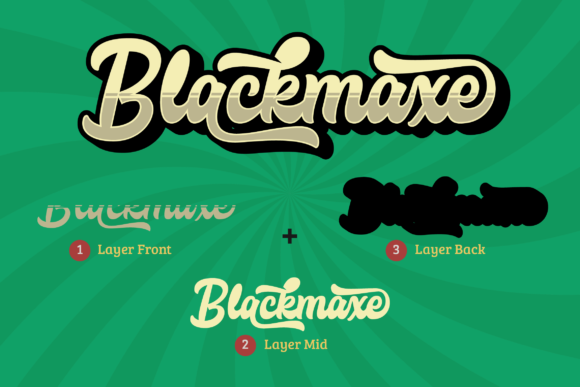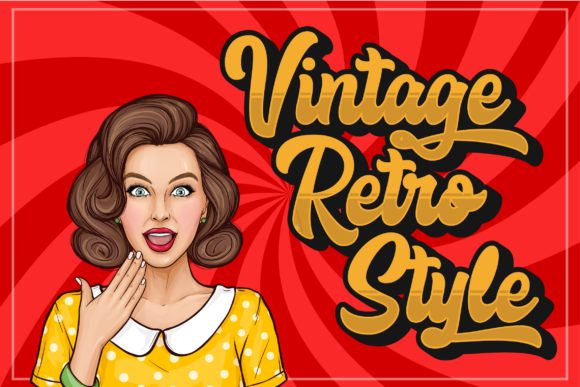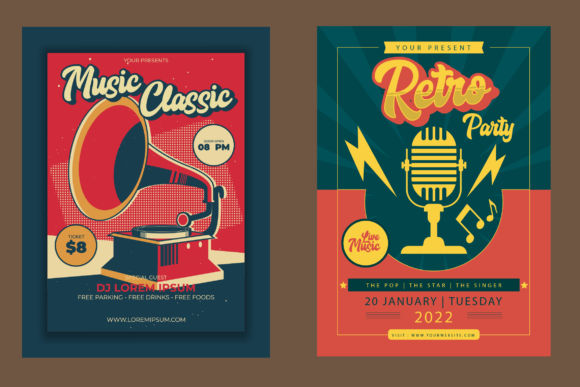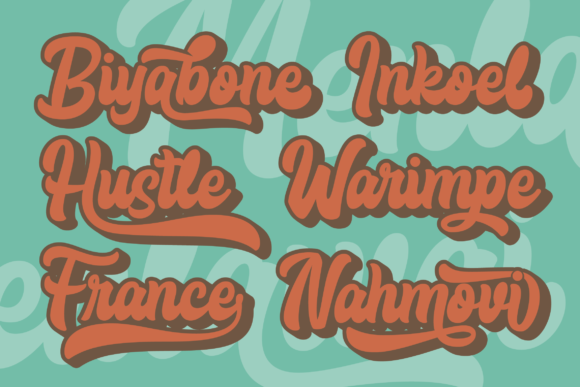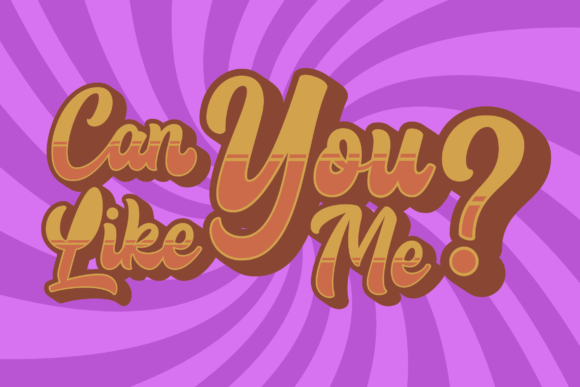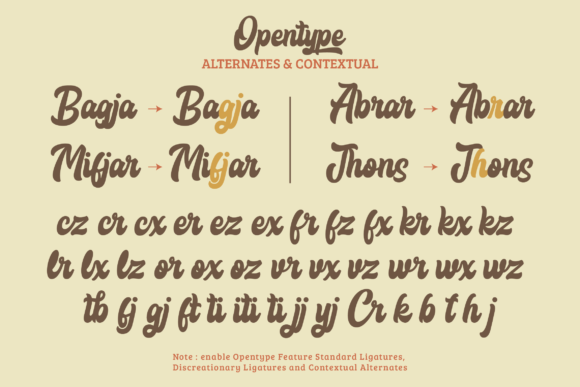
Introduction to Menlawai Font
Have you ever stumbled upon a vintage advertisement or a classic movie poster, and instantly felt the urge to recreate that retro vibe in your own design project? For designers, finding the perfect font to evoke that nostalgic feel can be a challenge. But, what if I told you that there’s a font that can transport you back in time and give your creative project a bold, dynamic touch?
Enter the Menlawai Font, a gorgeous and bold handwritten font that’s specifically designed to add a retro touch to your headlines and logotype projects. With its strong and confident feel, Menlawai Font is the perfect design resource for anyone looking to give their work a high-quality, nostalgic character.
Not only does Menlawai Font offer a free download, but it’s also PUA encoded, making it easy to access all glyphs and swashes. Whether you’re working on a design project with a transparent background or looking for a unique font to add to your collection, Menlawai Font is a valuable asset for any designer.
Key Features of Menlawai Font
- High-quality, professional font suitable for various creative projects, including digital designs, graphics, and print materials.
- Unique, stylish design with a transparent background, making it perfect for use on various backgrounds and designs.
- Designed to be versatile, the Menlawai Font is suitable for a wide range of applications, from headings and titles to body text and captions.
- Perfect for designers and artists working on creative projects, the Menlawai Font is a valuable design resource that can help elevate any project.
Honest Review: Menlawai Font
I recently stumbled upon the Menlawai Font and I’m excited to share my honest review with you. As a designer, I’m always on the lookout for high-quality design resources that can elevate my creative projects.
One of the things that stands out about the Menlawai Font is its unique and elegant design. The font is perfect for adding a touch of sophistication to any design, from logos to brochures. I particularly love the fact that it comes with a transparent background, making it easy to use with any background image or color.
Here are some of the things that work well about the Menlawai Font:
- Unique and elegant font style
- The font may not be suitable for all types of projects, particularly those that require a bold or playful font
- The font may not be as versatile as some other fonts on the market
Overall, I’m really impressed with the Menlawai Font and I think it’s a great addition to any designer’s toolkit. If you’re looking for a high-quality, elegant font for your creative project, I’d definitely recommend giving it a try.
Designing with Menlawai Font
Menlawai Font is ideal for creative projects that require a unique and stylish touch. Its transparent background makes it versatile for use on various backgrounds. Use it to create eye-catching titles, headings, or even quotes in your design.
Menlawai Font is suitable for various design projects, including:
- Graphic designs for social media
- Branding and logo designs
Compared to Menlawai Font, Great Vibes Font has a more refined and polished appearance, making it suitable for high-end design projects. While Menlawai Font has a more playful and casual feel, Great Vibes Font exudes a sense of luxury and sophistication.